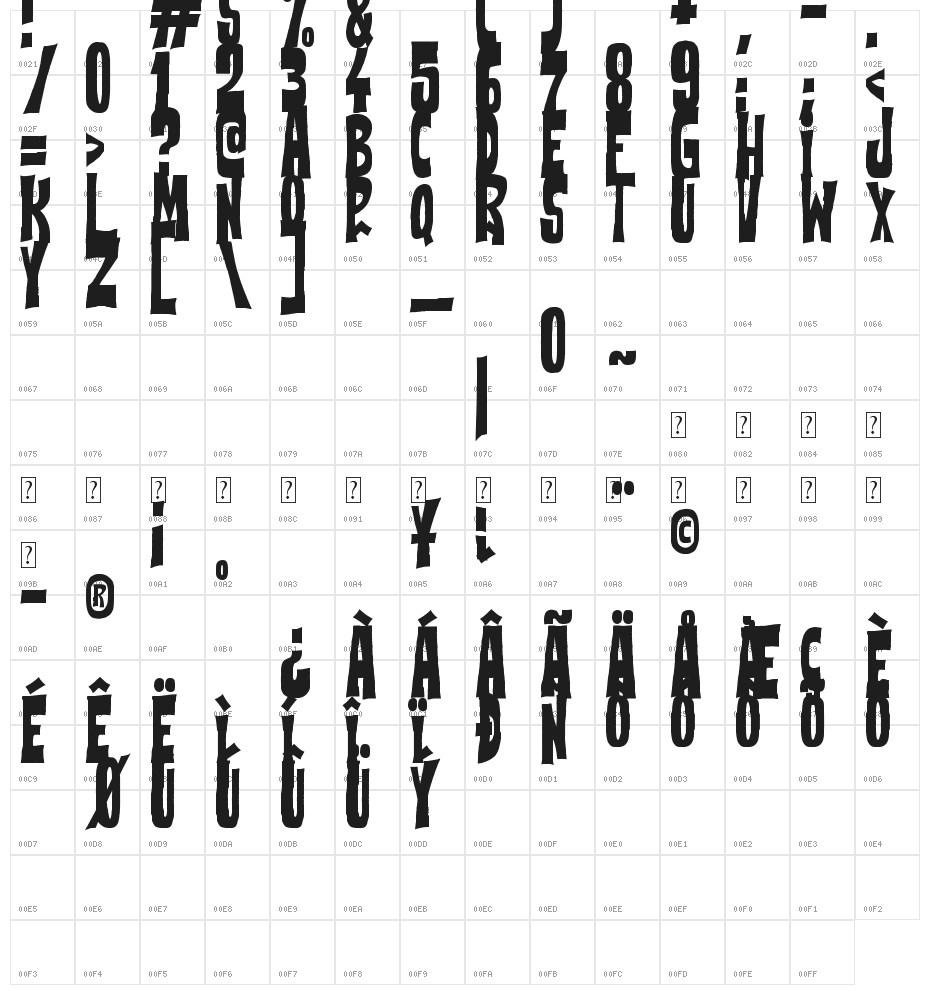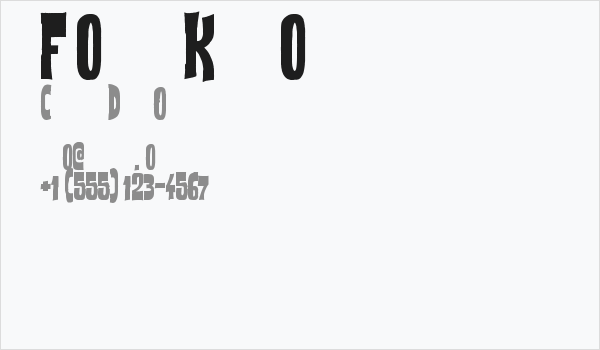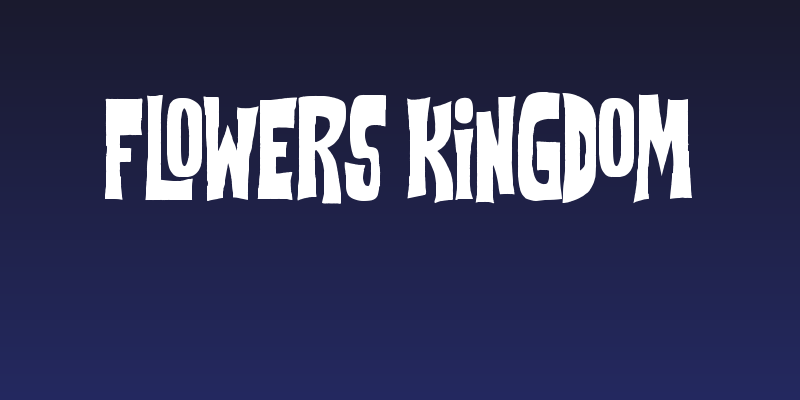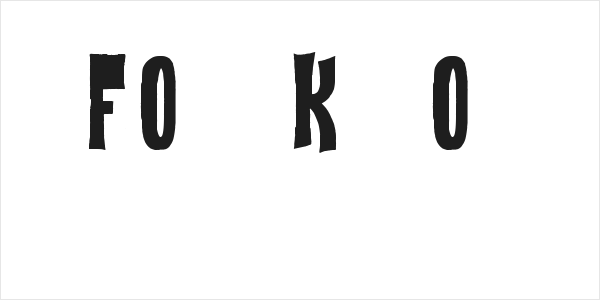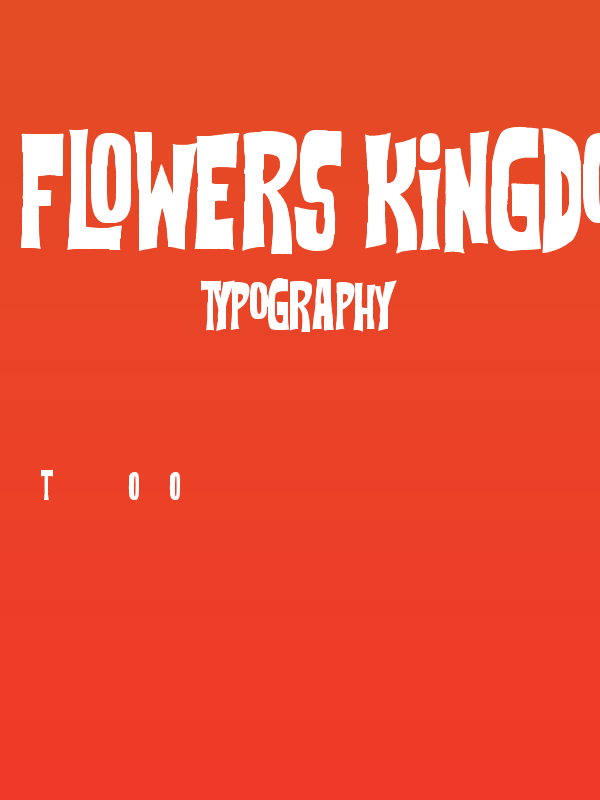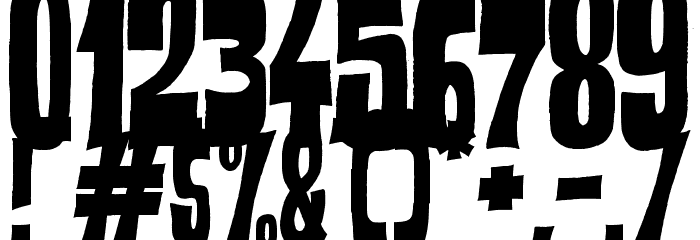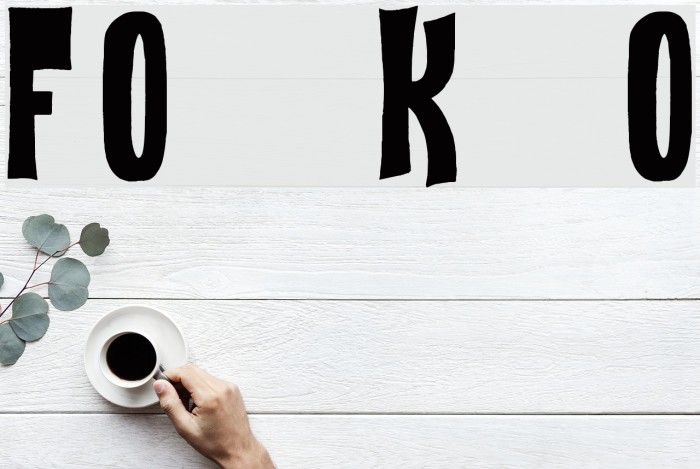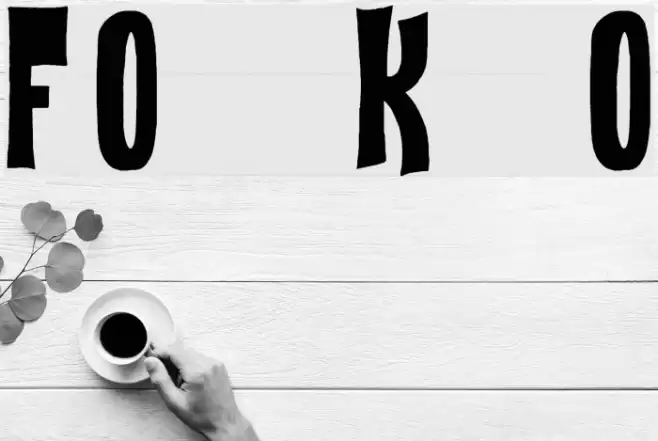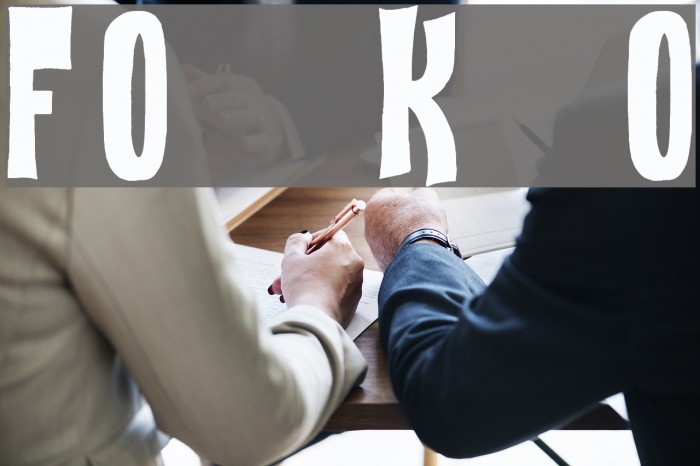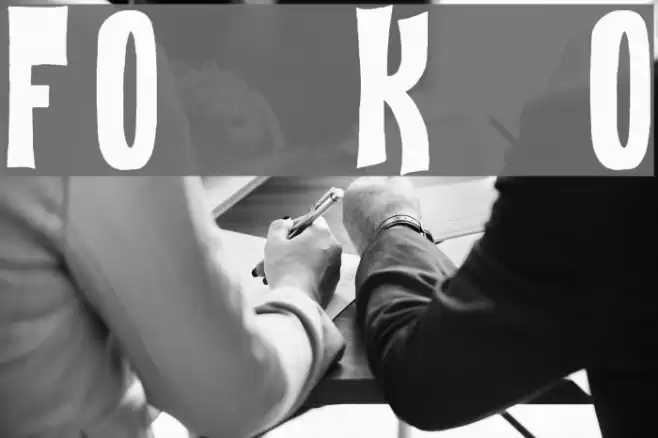
Flowers Kingdom Font
Flowers Kingdom Description
This font features a bold and expressive style with a hand-drawn appearance. The characters are uneven and irregular, giving it a playful and artistic feel. The uppercase letters are tall and narrow, while the lowercase letters maintain a consistent height, adding to the quirky aesthetic. Numbers and special characters follow the same bold and dynamic style, making them stand out. The overall design is reminiscent of a decorative or display typeface, suitable for creative projects that require a unique and eye-catching look.
| Proposed Projects | Ideal for posters, album covers, artistic projects, and any design that requires a bold statement. |